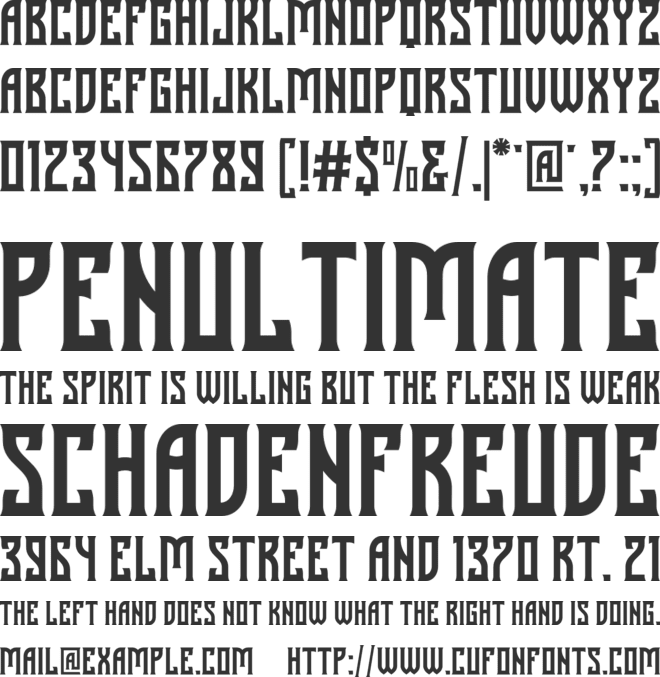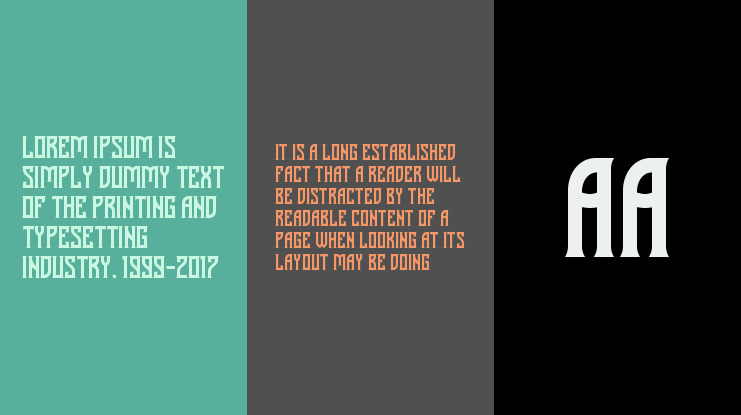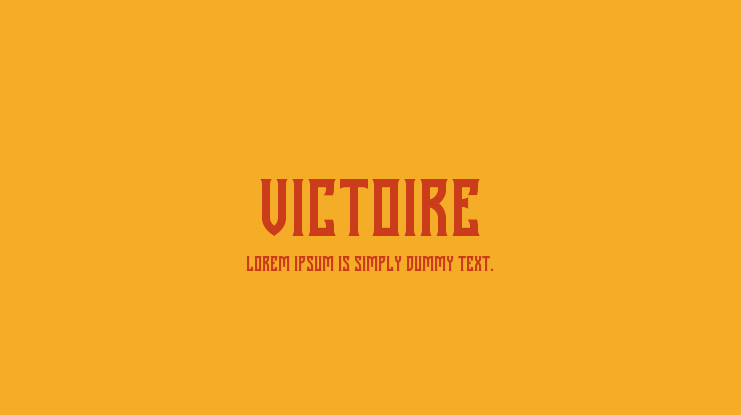
Victoire Font
Diego Inacio
Victoire is an elegant typography, inspired in the vintage style, and the serif used on it makes it more attractive and clear. This font has the perfect style for classic brand designs and logos, and is free for personal and commercial use.